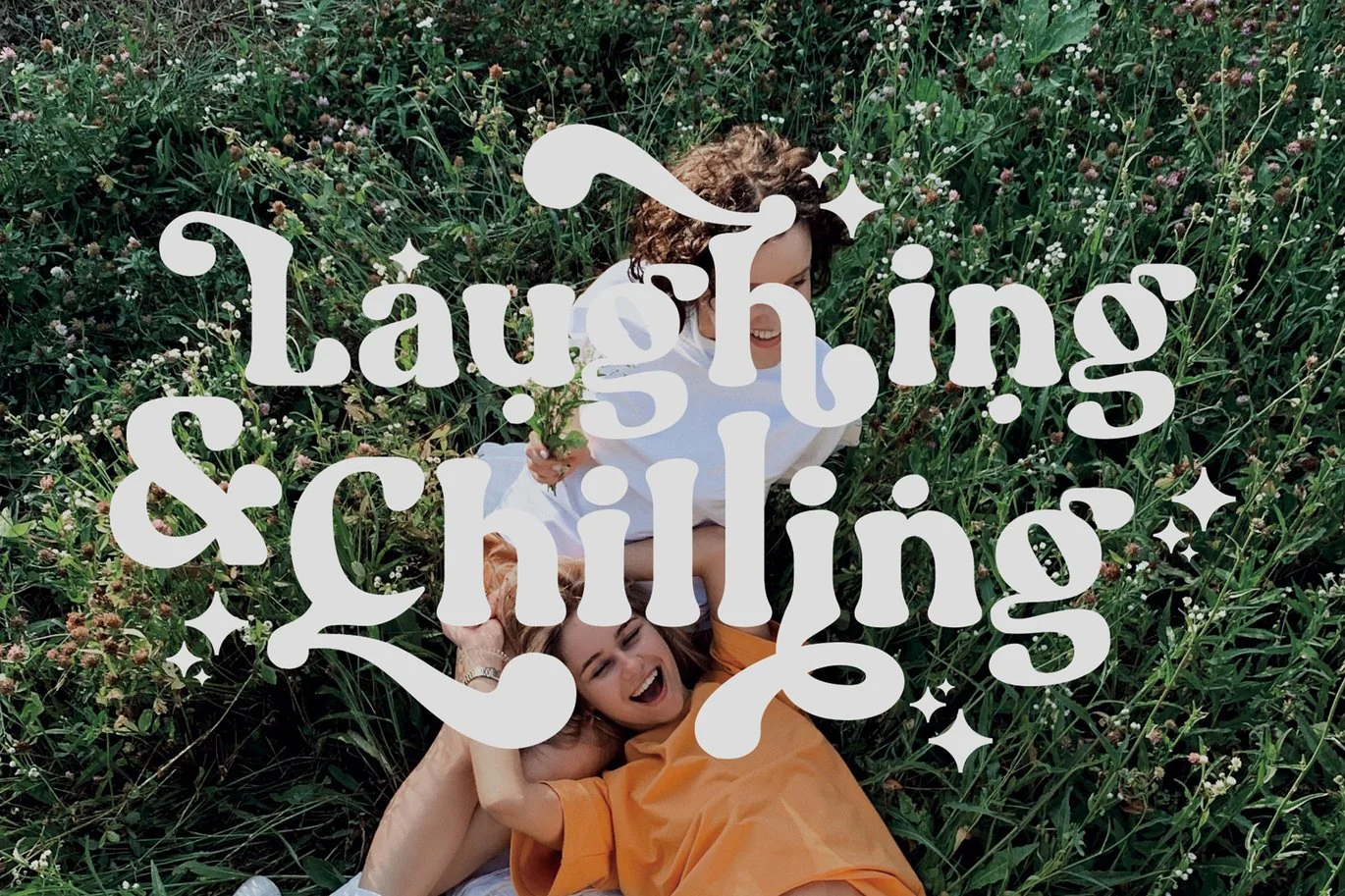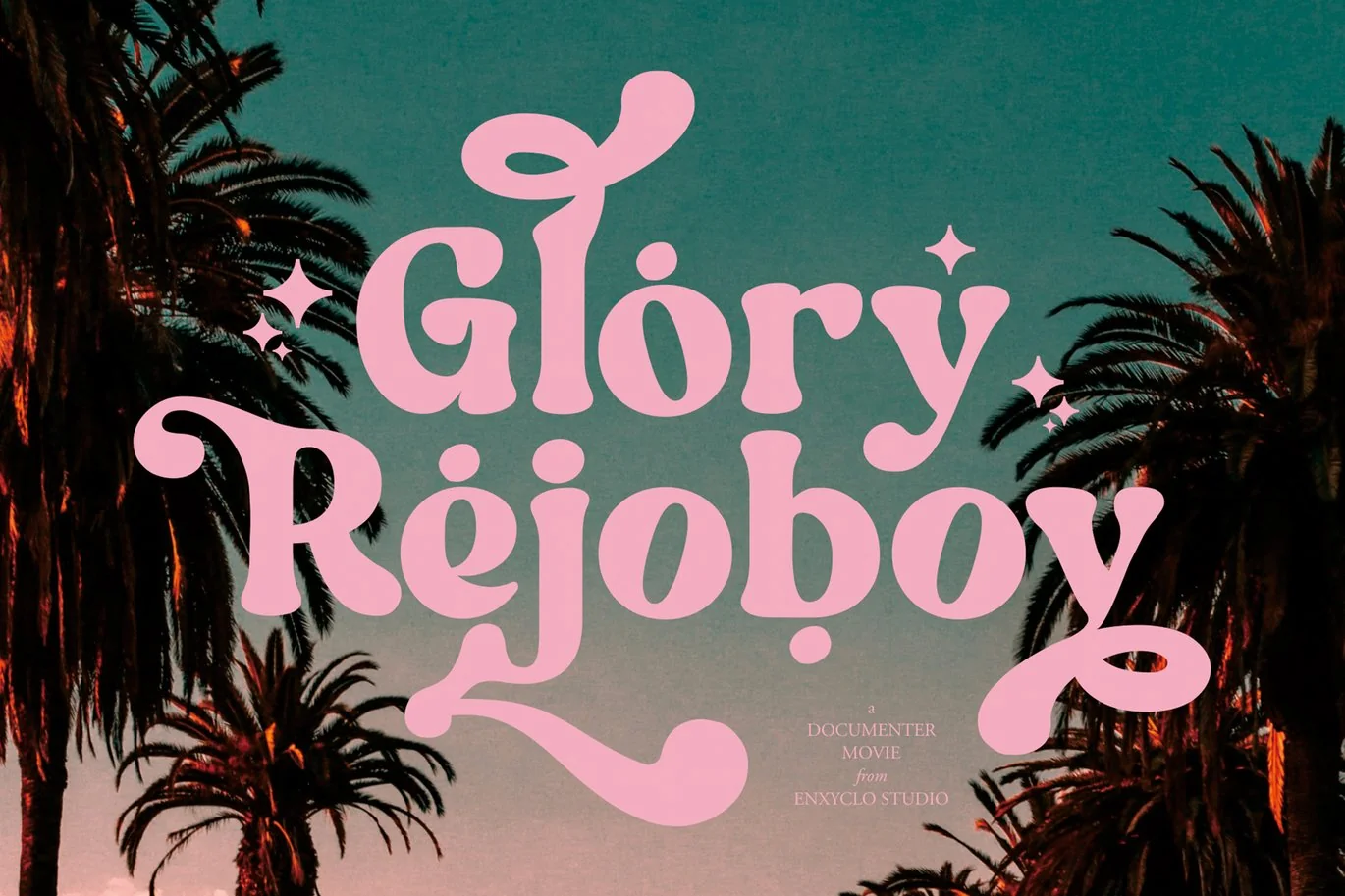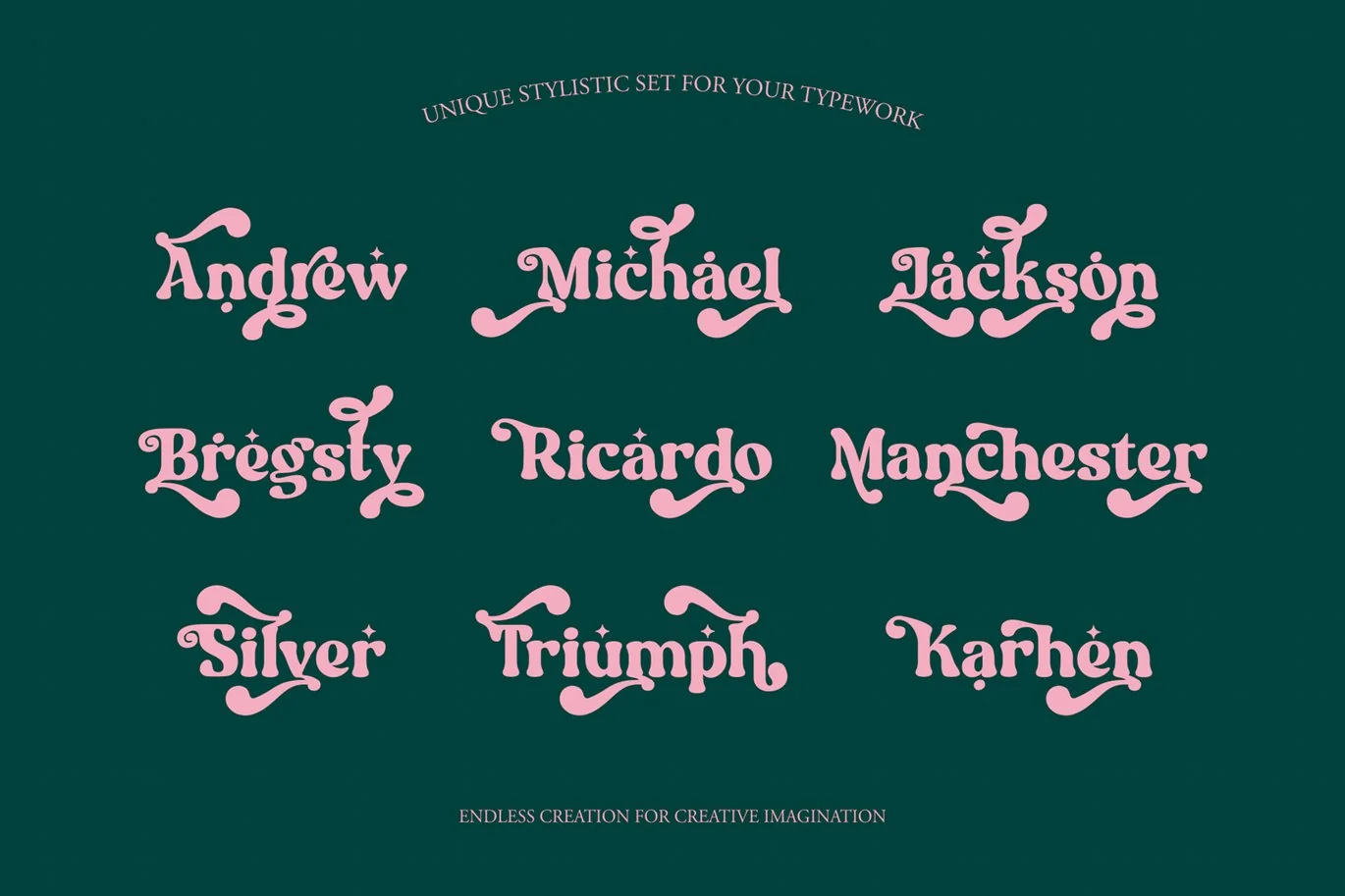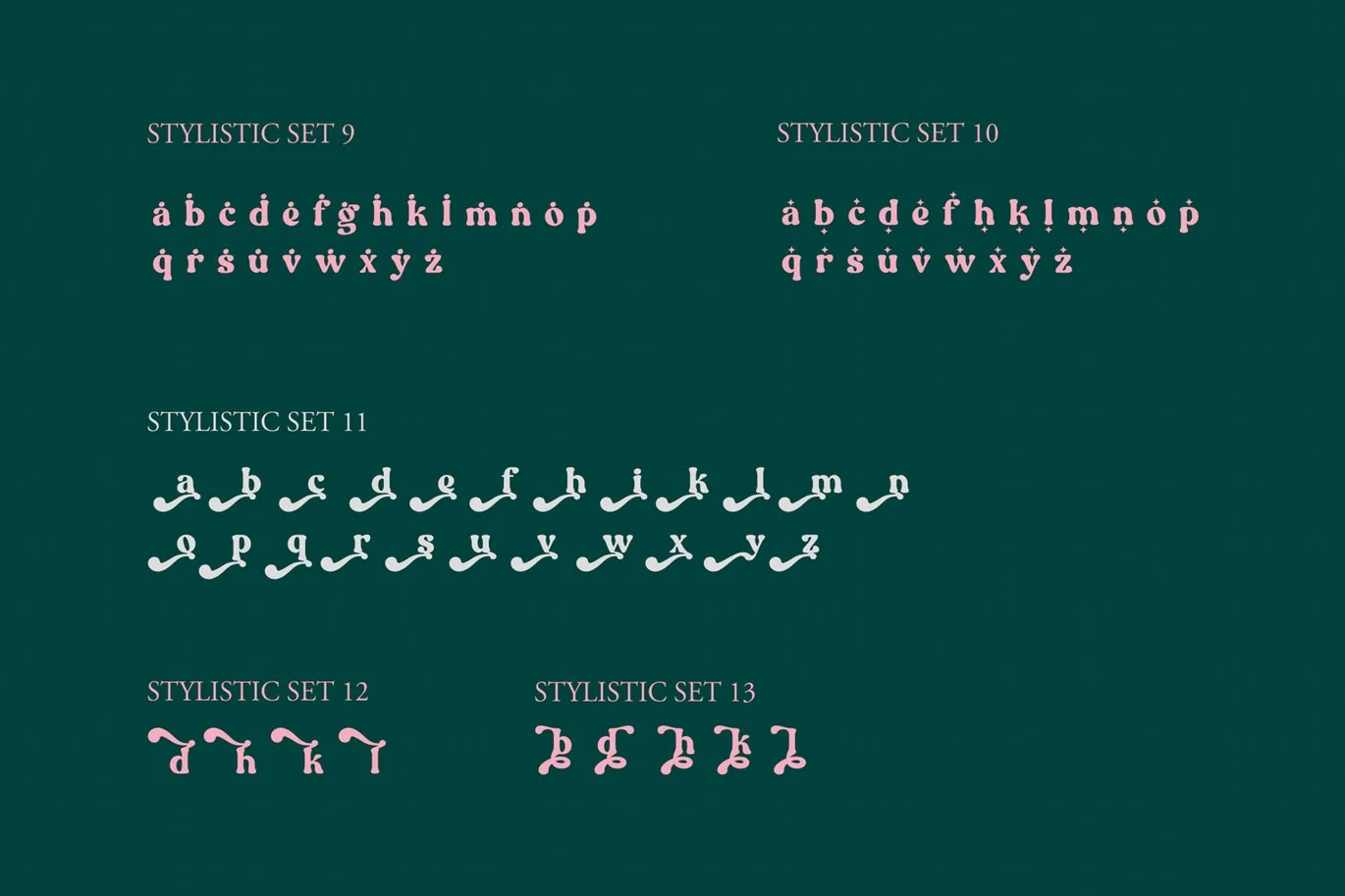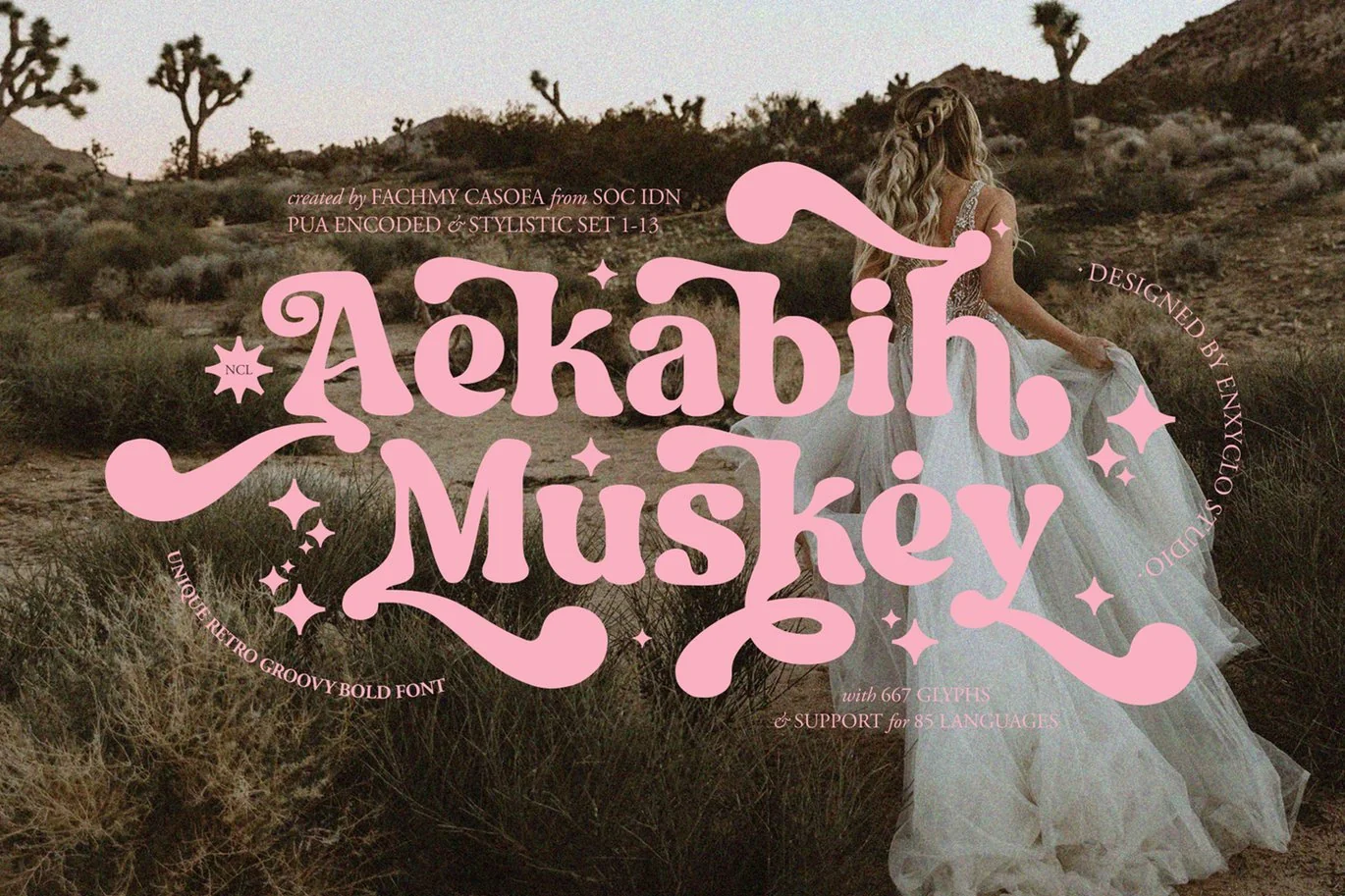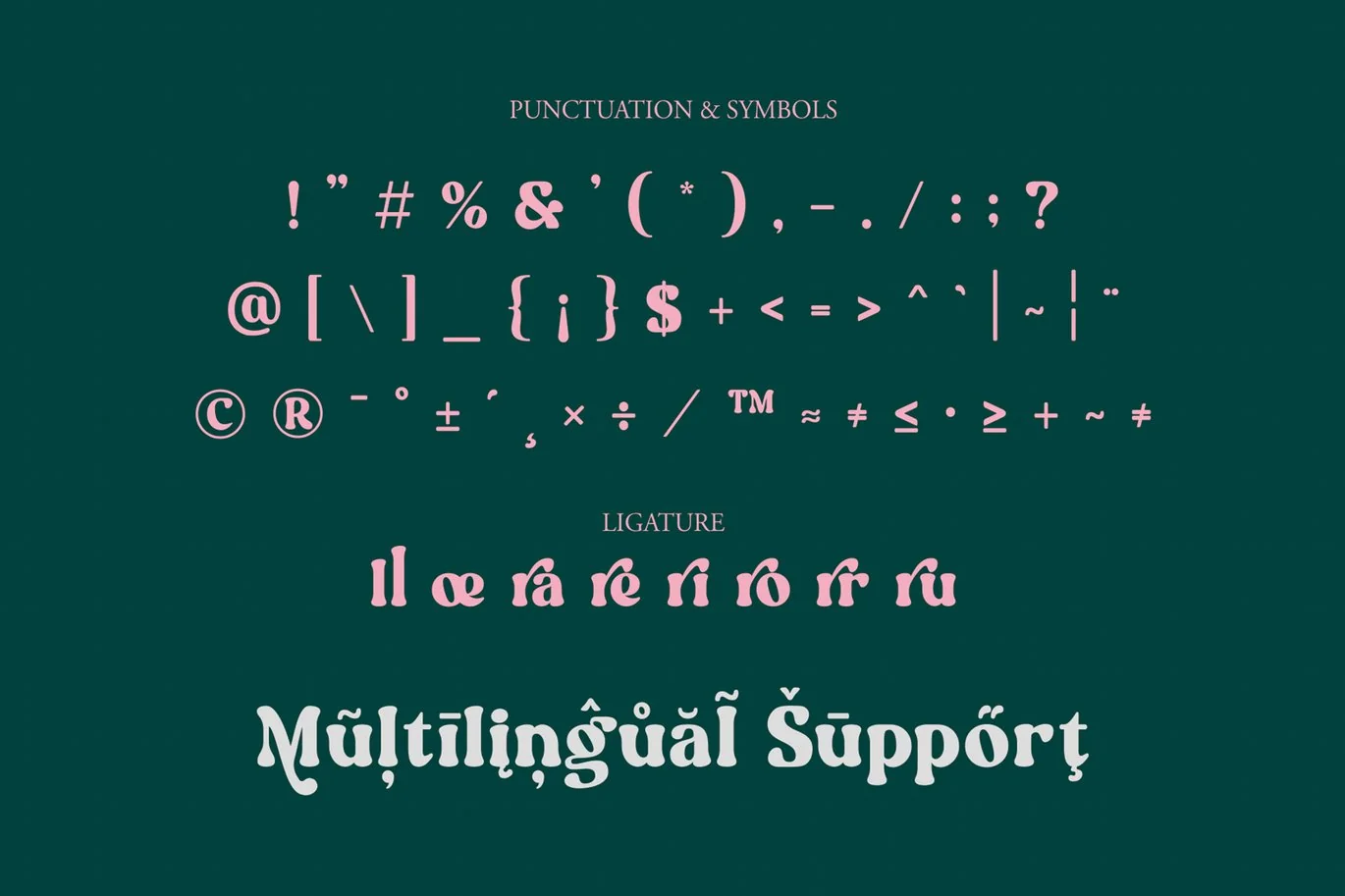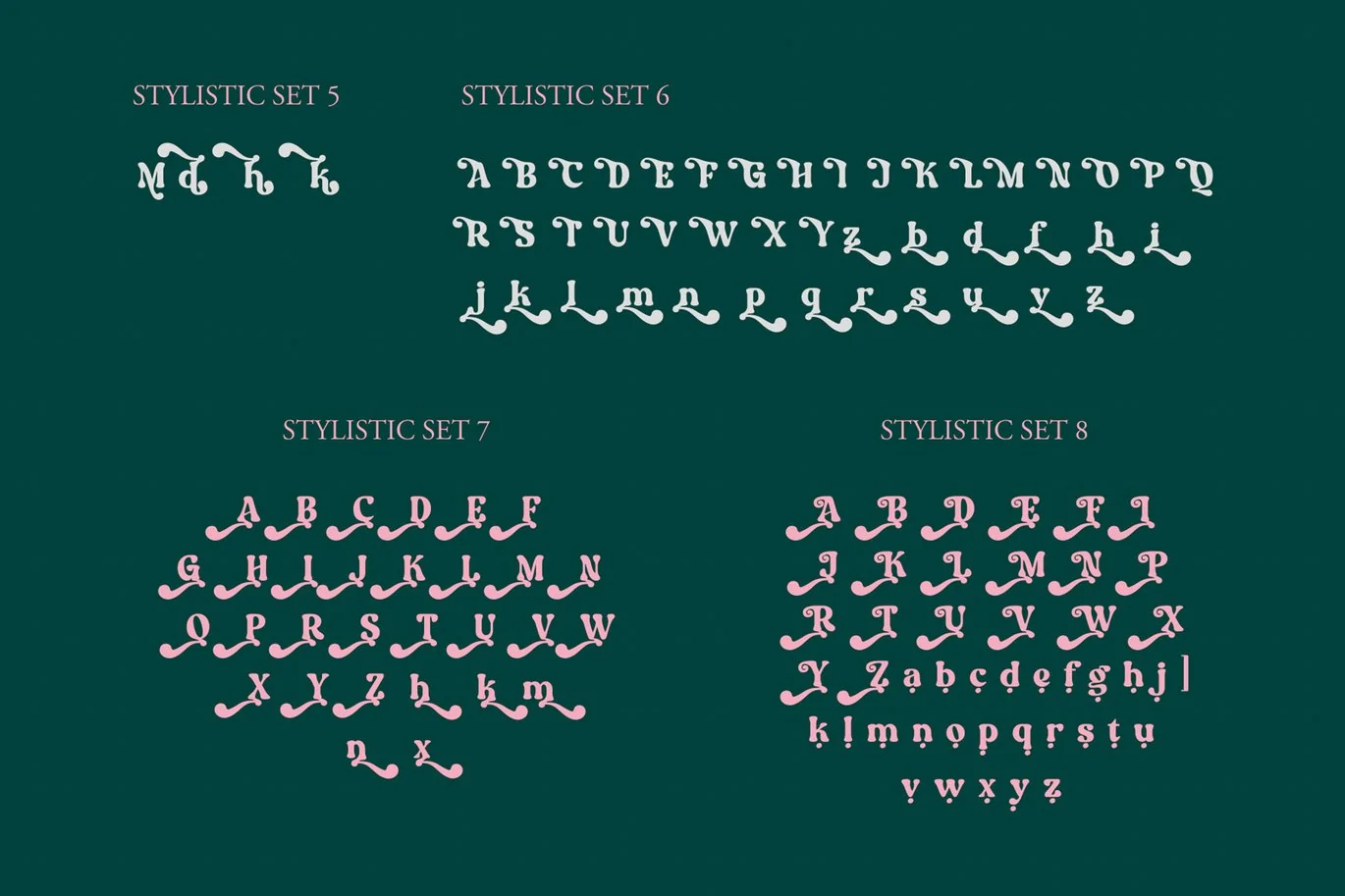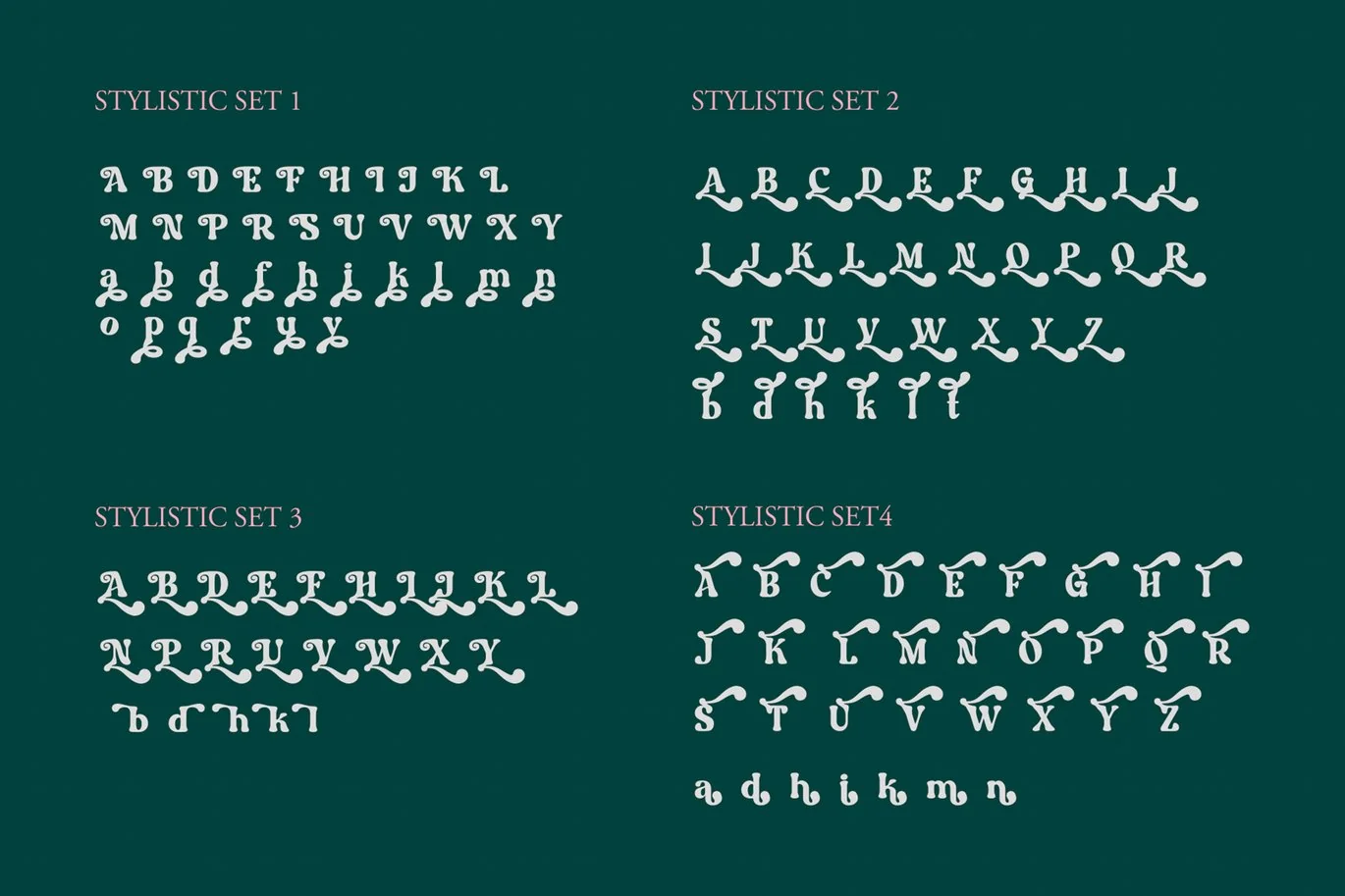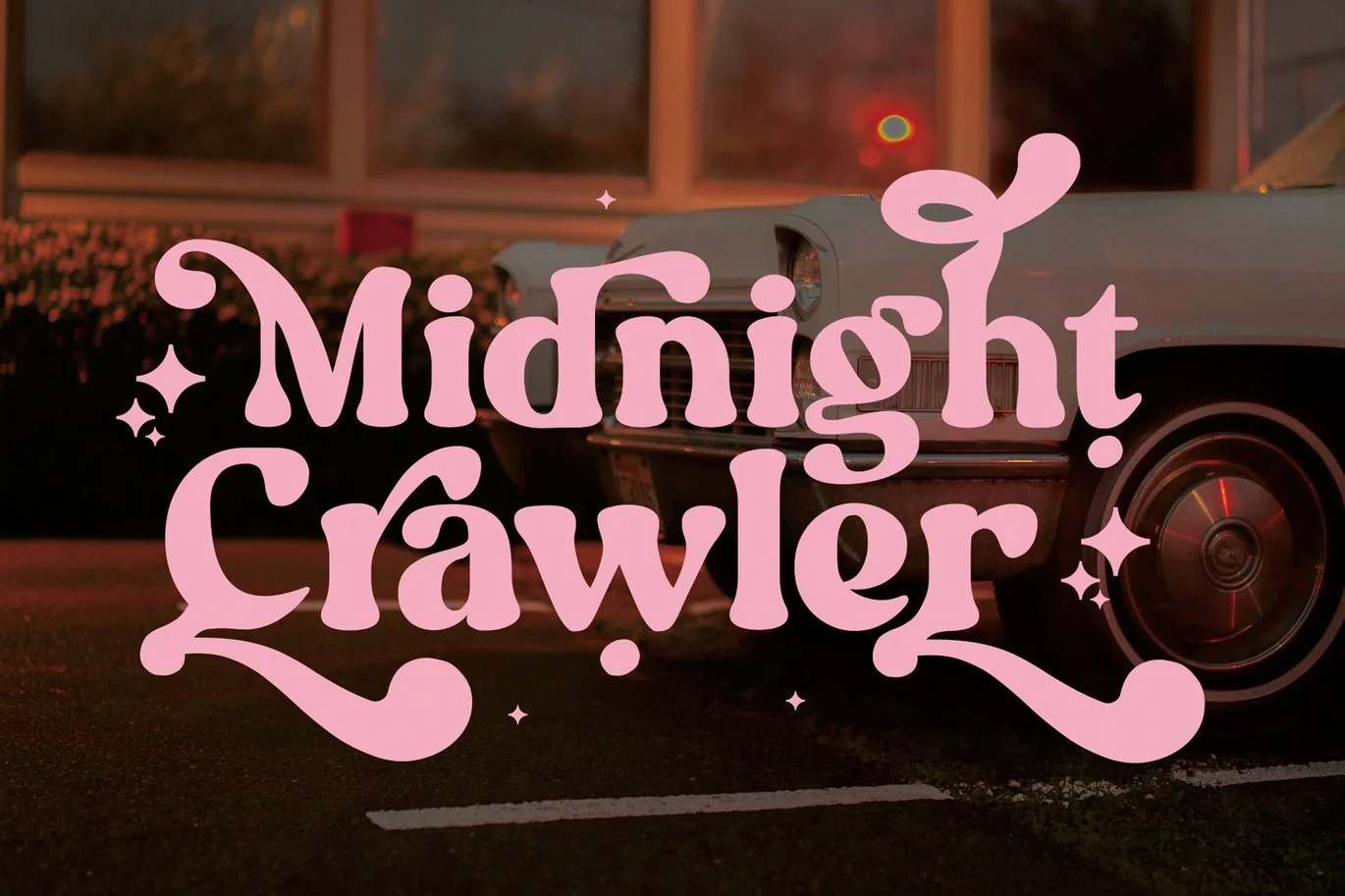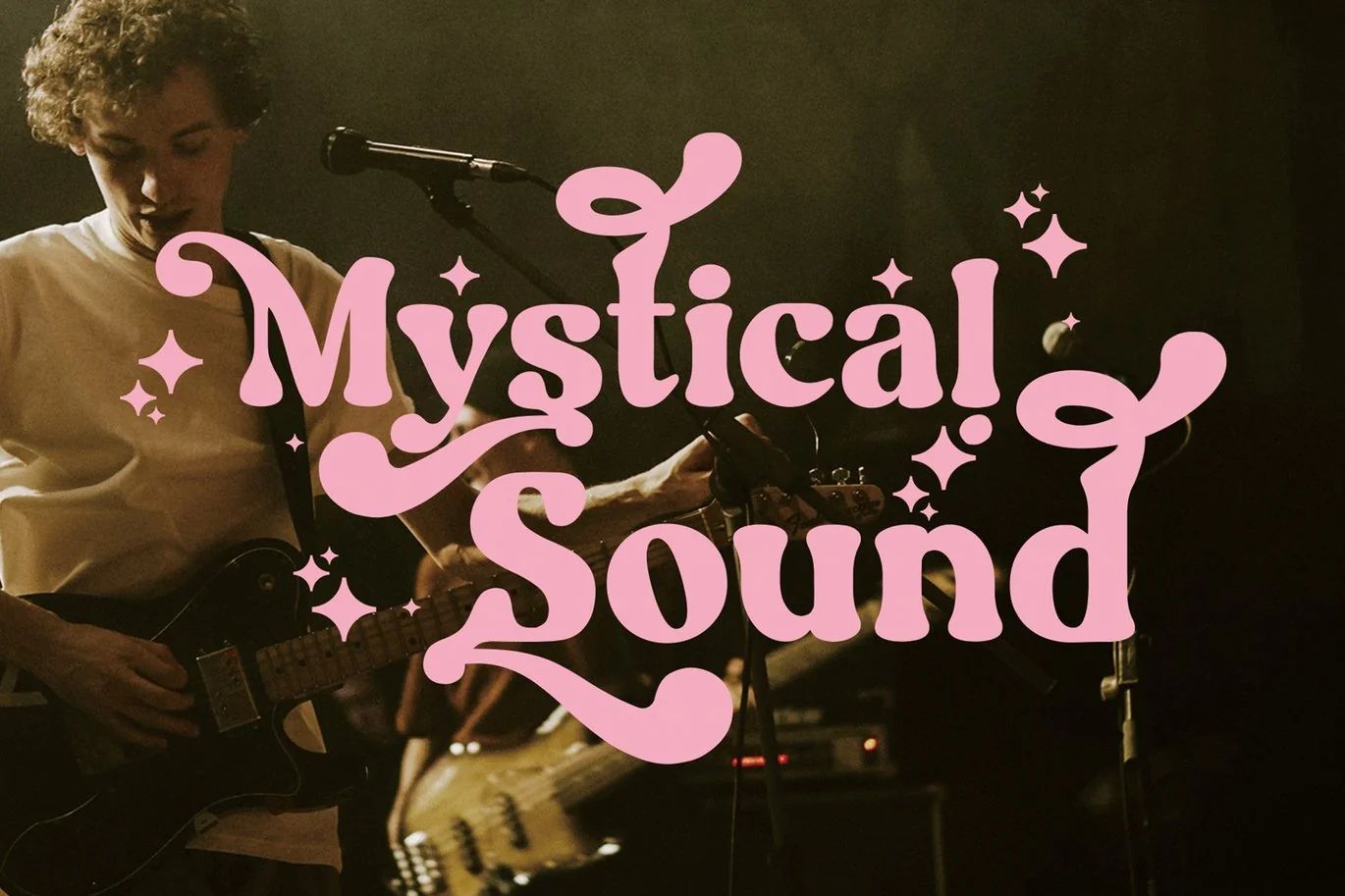
NCL Aekabih Muskey – Retro Groovy Bold Font
NCL AEKABIH MUSKEY is a retro groovy bold font. Masterfully designed to become a true favorite, this font has the potential to bring each of your creative ideas to the highest level! It was purposely crafted to be used in large point sizes, although it doesn’t lose its magic in small point sizes. It is perfect for wedding, headline, billboard, magazines, website, titles, poster, branding, and logos. No matter the topic, this font will be an incredible asset to your fonts’ library, as it has the potential to elevate any creation. With this beautiful font, absolutely you can make your project stand out from the rest.
- Contains 667 Glyphs
- Numeral, Punctuation & Symbols
- Special Ligatures
- Stylistic Set 1-13
- Support for 85 Languages: Afrikaans, Albanian, Asu, Basque, Bemba, Bena, Breton, Catalan, Chiga, Cornish, Croatian, Czech, Danish, Dutch, Embu, English, Esperanto, Estonian, Filipino, Finnish, French, Friulian, Galician, Gusii, Hungarian, Indonesian, Irish, Italian, Kabuverdianu, Kalenjin, Kamba, Kikuyu, Kinyarwanda, Latvian, Lithuanian, Lower Sorbian, Luo, Luxembourgish, Luyia, Machame, Makhuwa-Meetto, Makonde. Malagasy, Maltese, Manx, Meru, Morisyen, North Ndebele, Norwegian Bokmål, Norwegian Nynorsk, Nyankole, Oromo, Polish, Portuguese, Quechua, Romansh, Rombo, Rundi, Rwa, Samburu, Sango, Sangu, Scottish Gaelic, Sena, Serbian, Shambala, Shona, Slovak, Soga, Somali, Spanish, Swahili, Swedish, Swiss German, Taita, Teso, Turkish, Upper Sorbian, Uzbek (Latin), Volapük, Vunjo, Walser, Welsh, Western Frisian, Zulu.